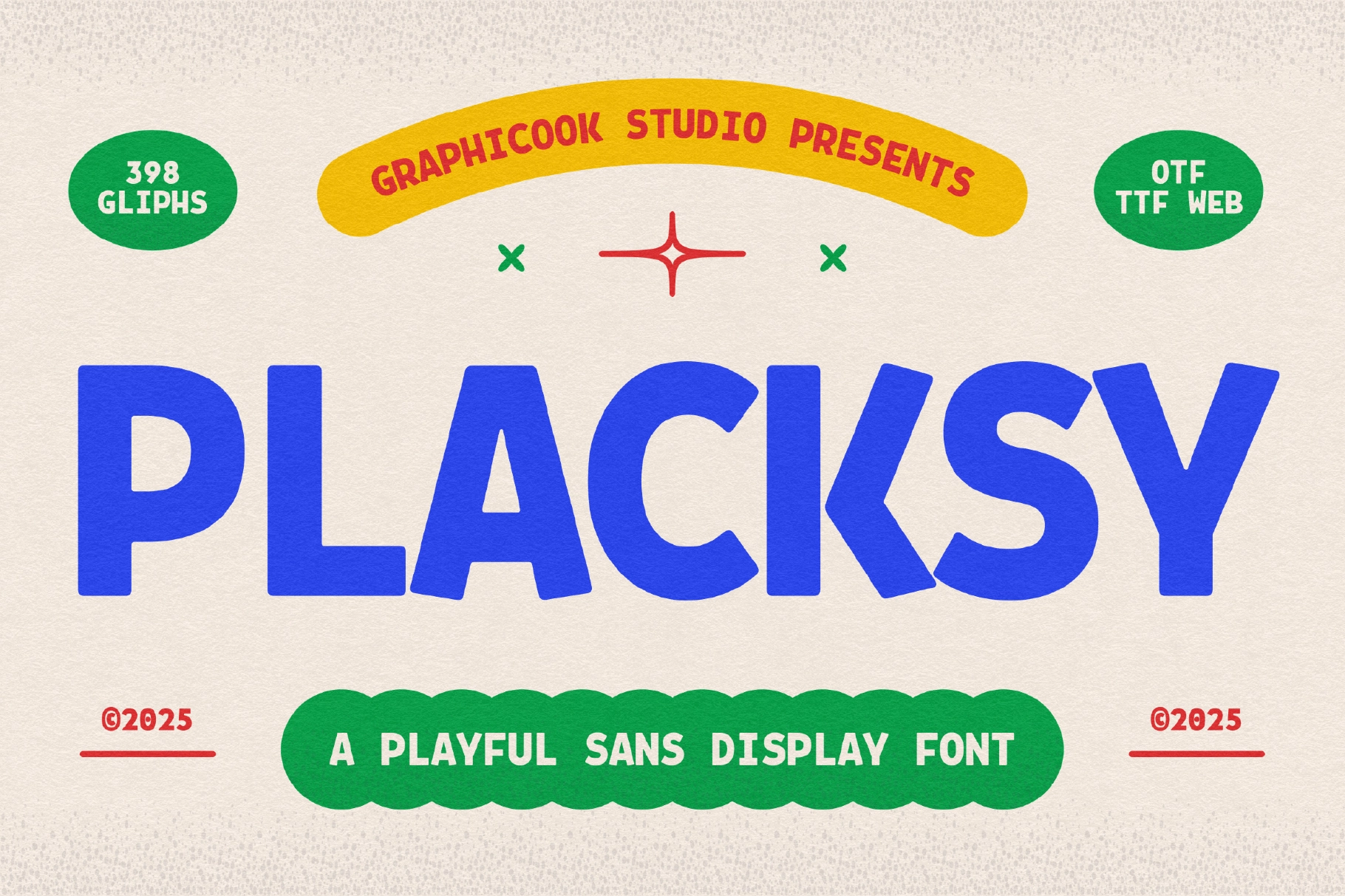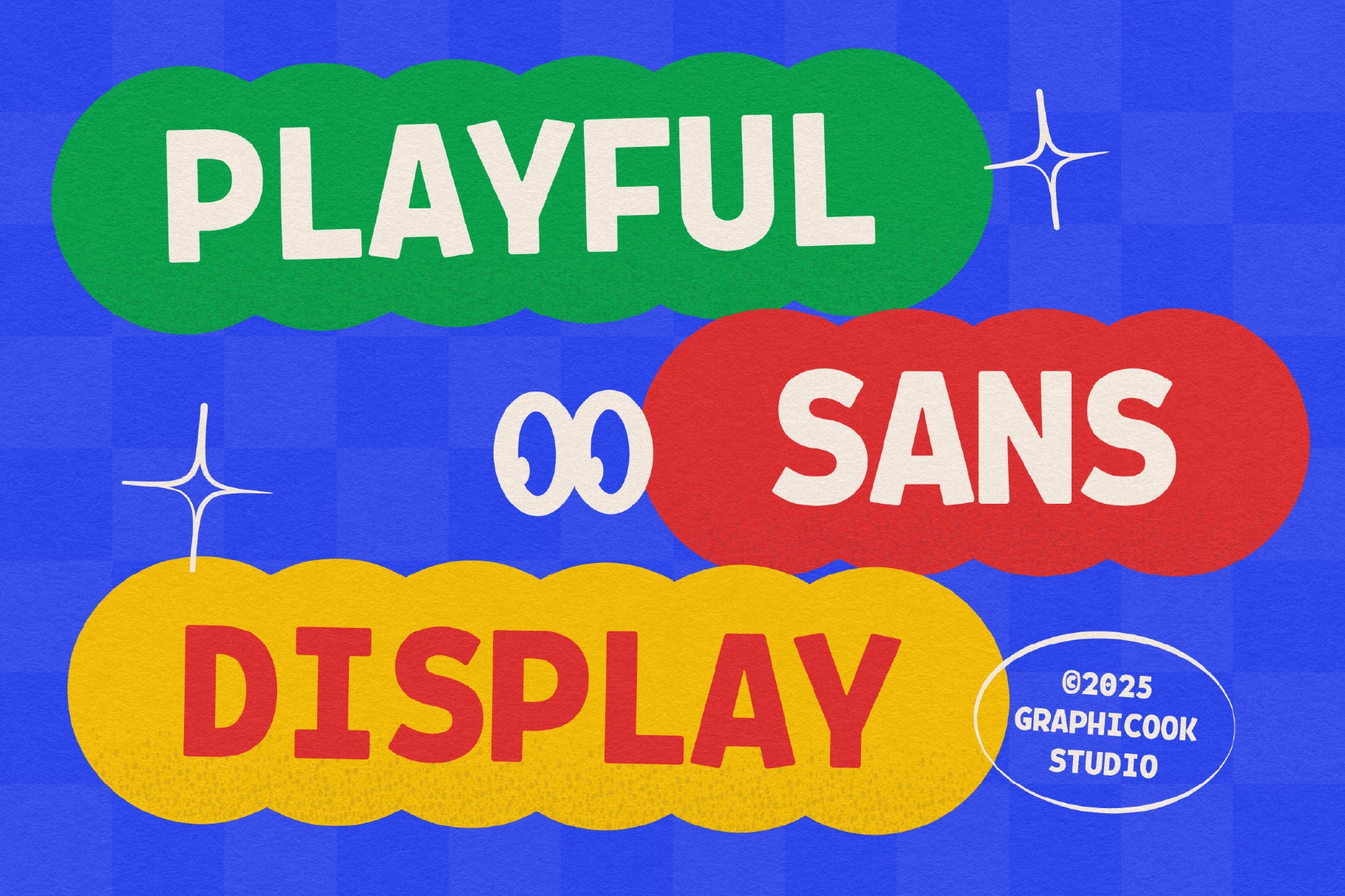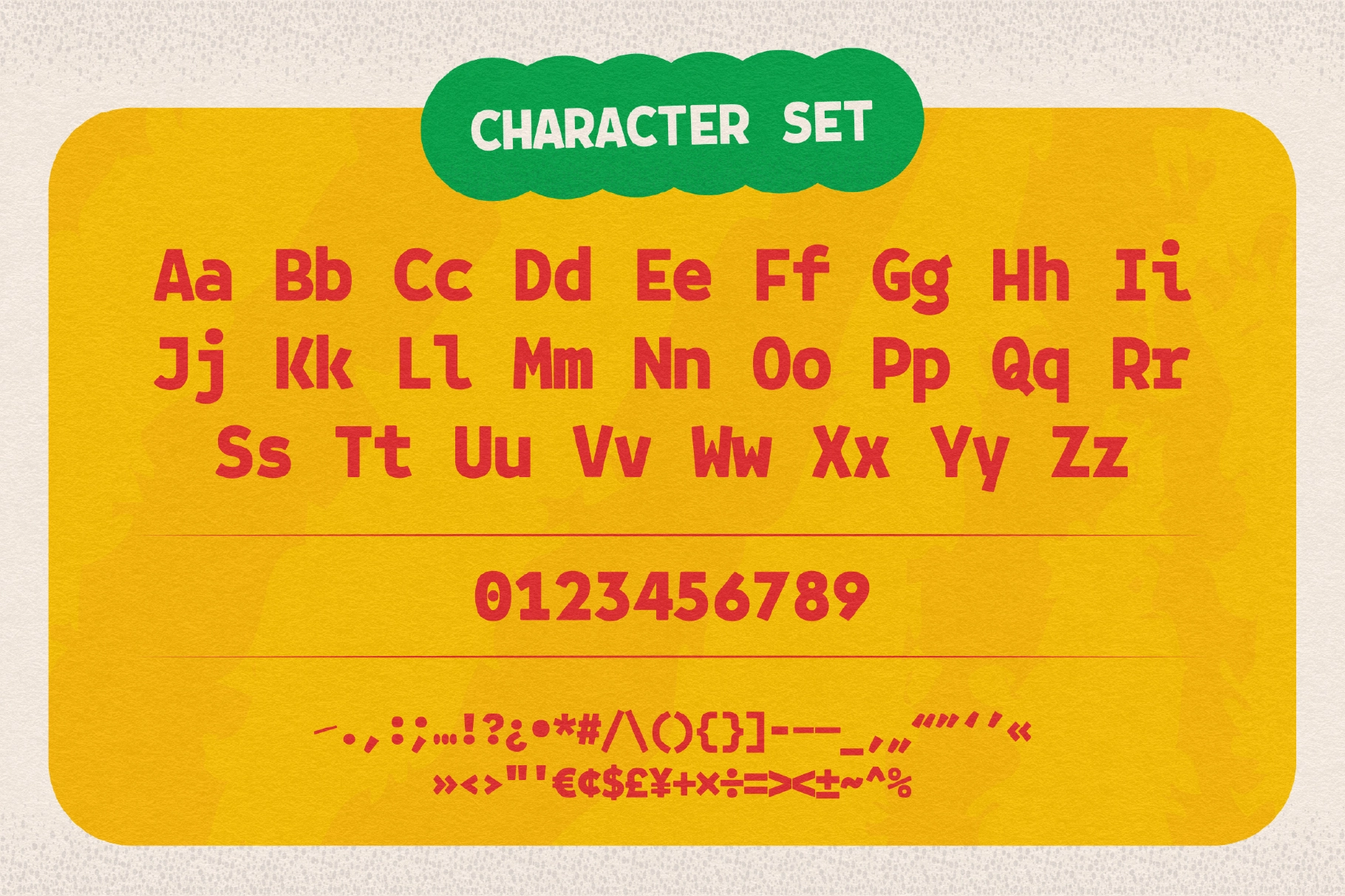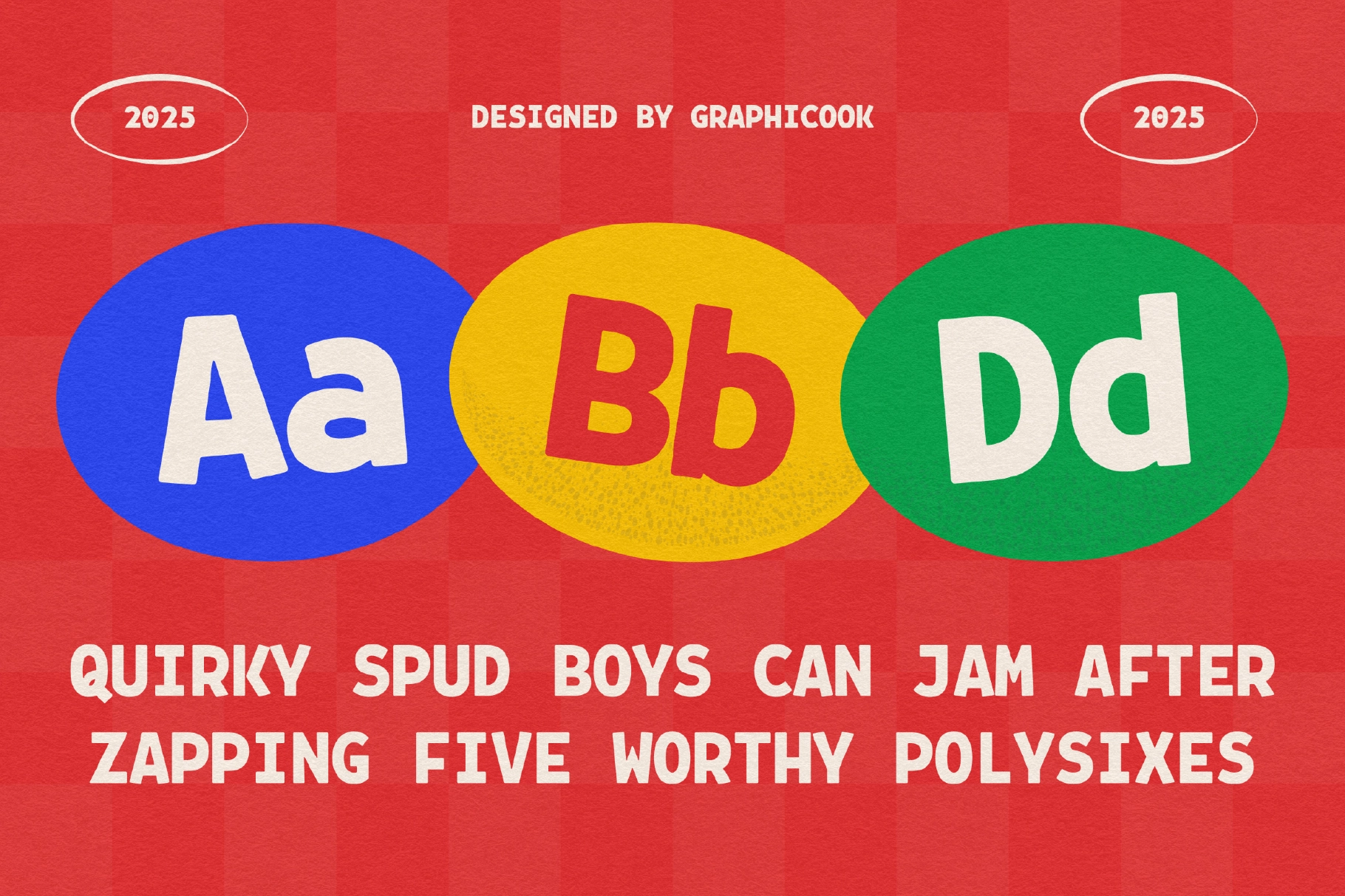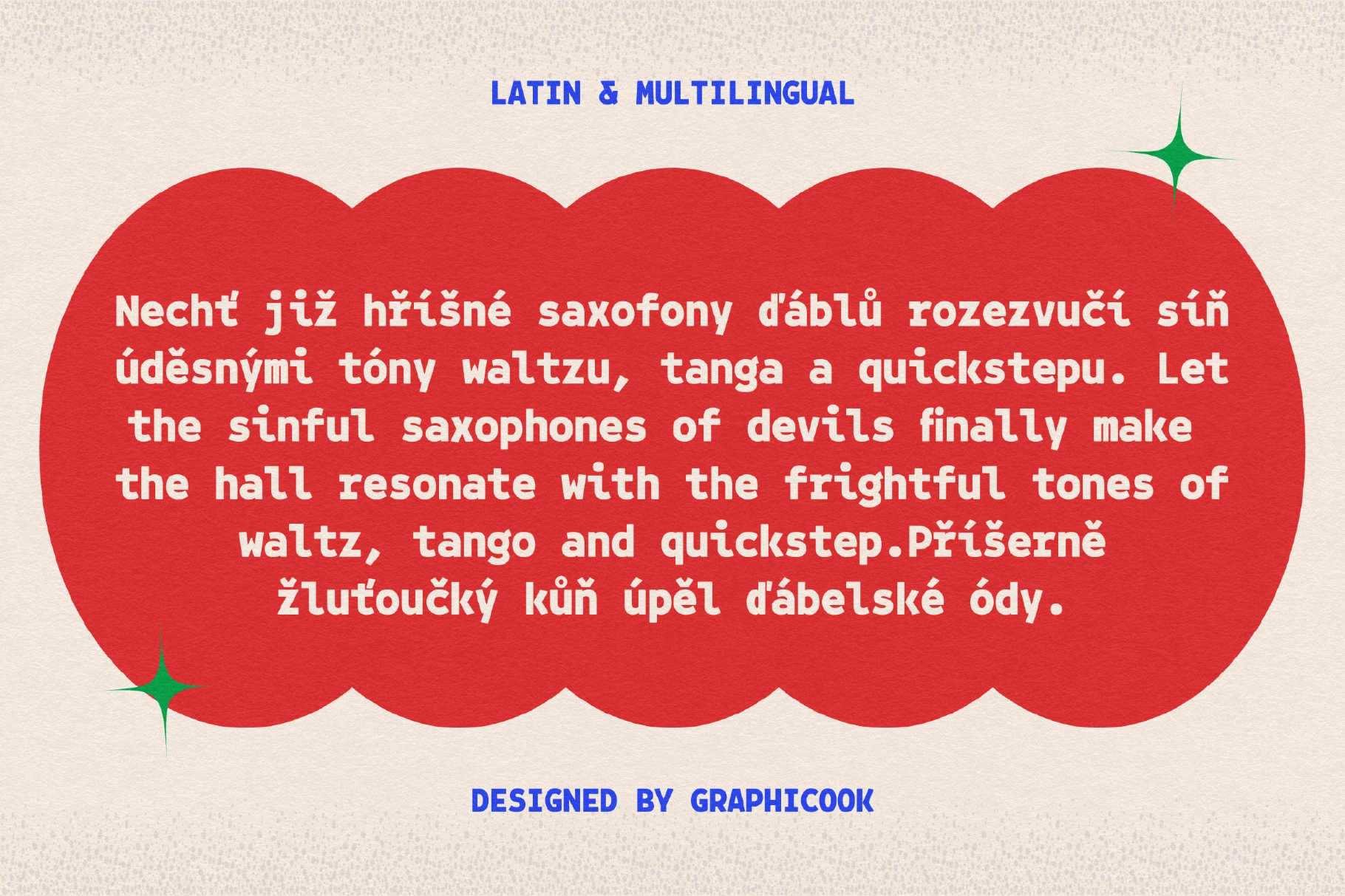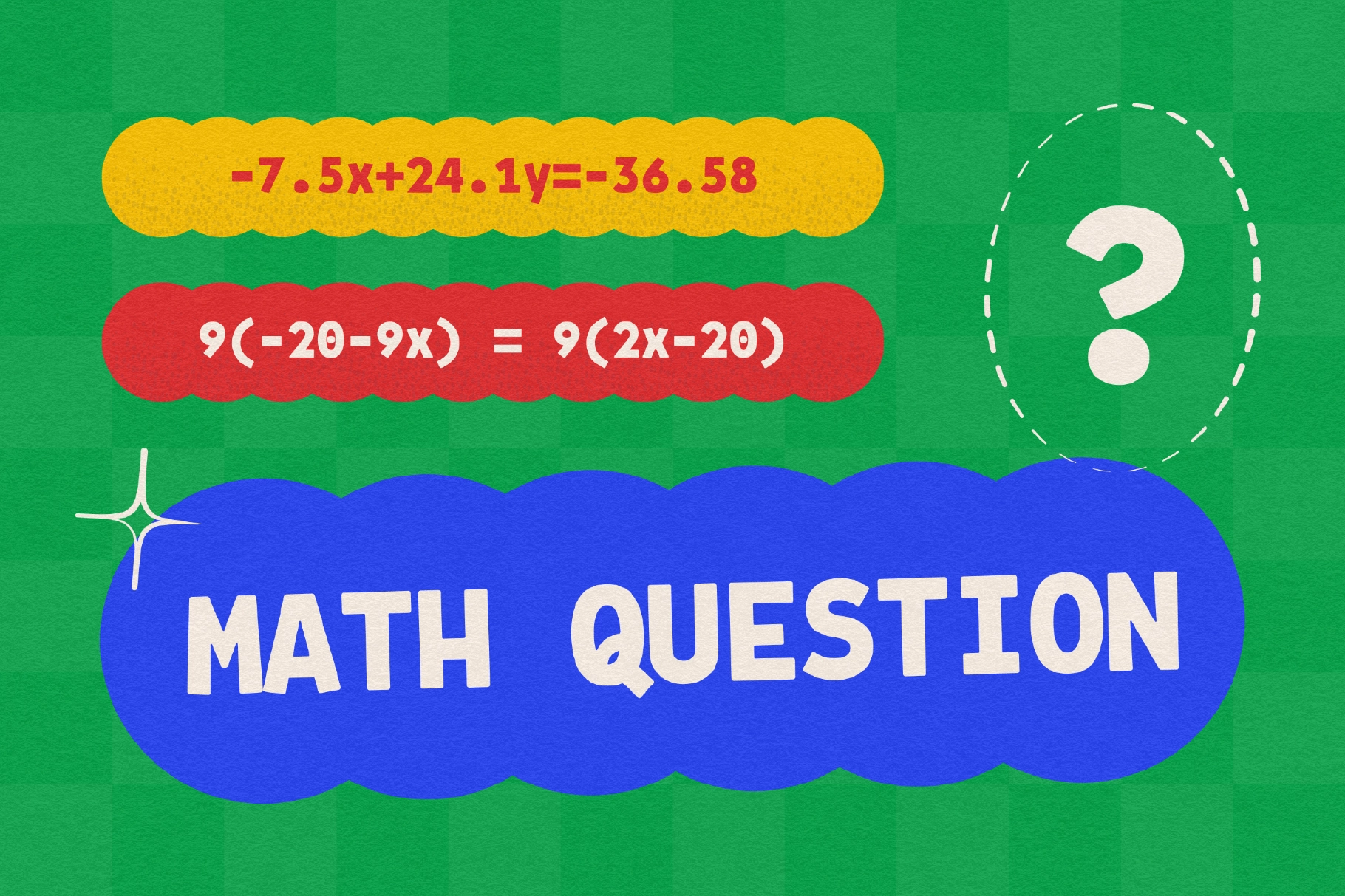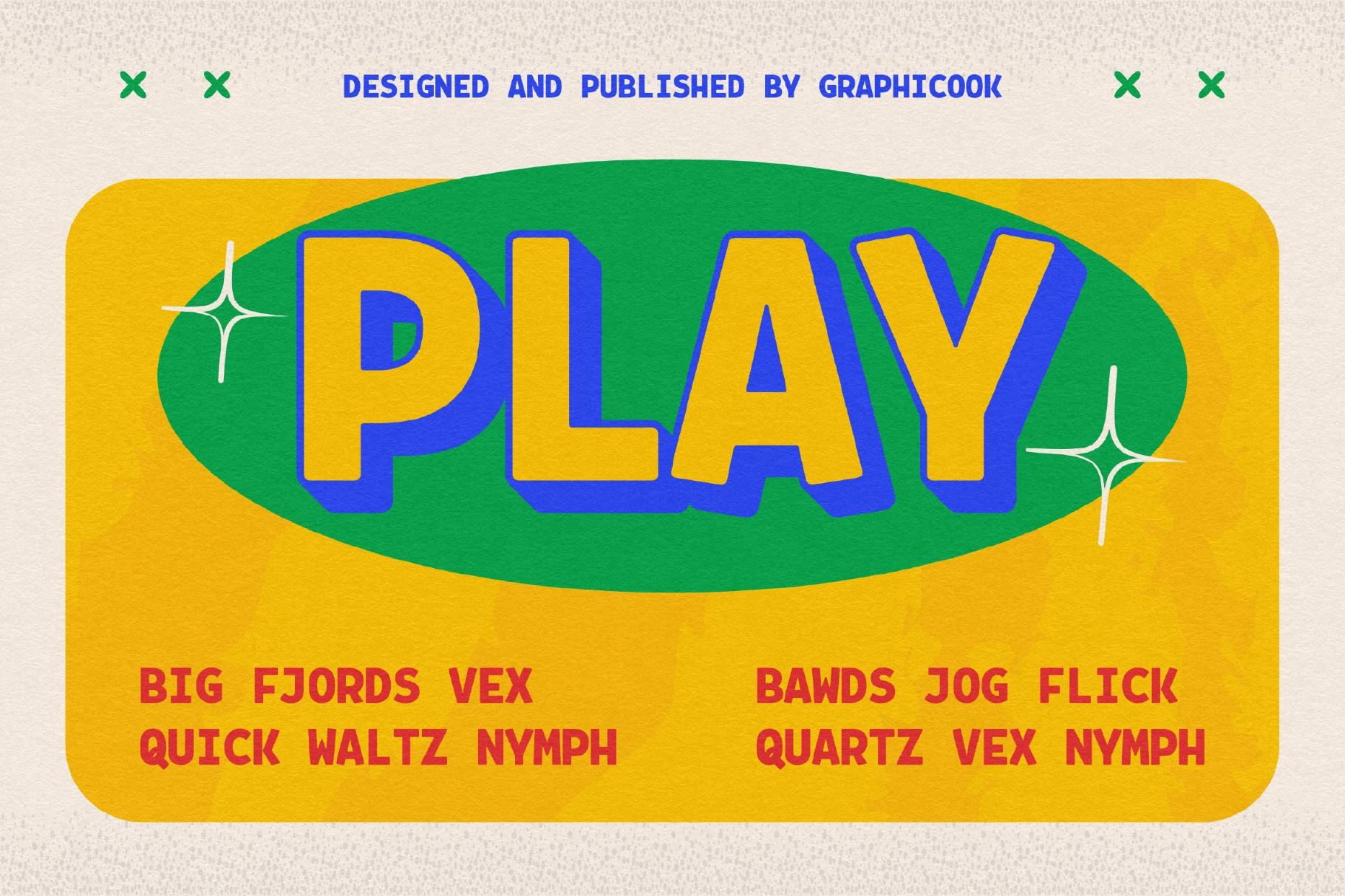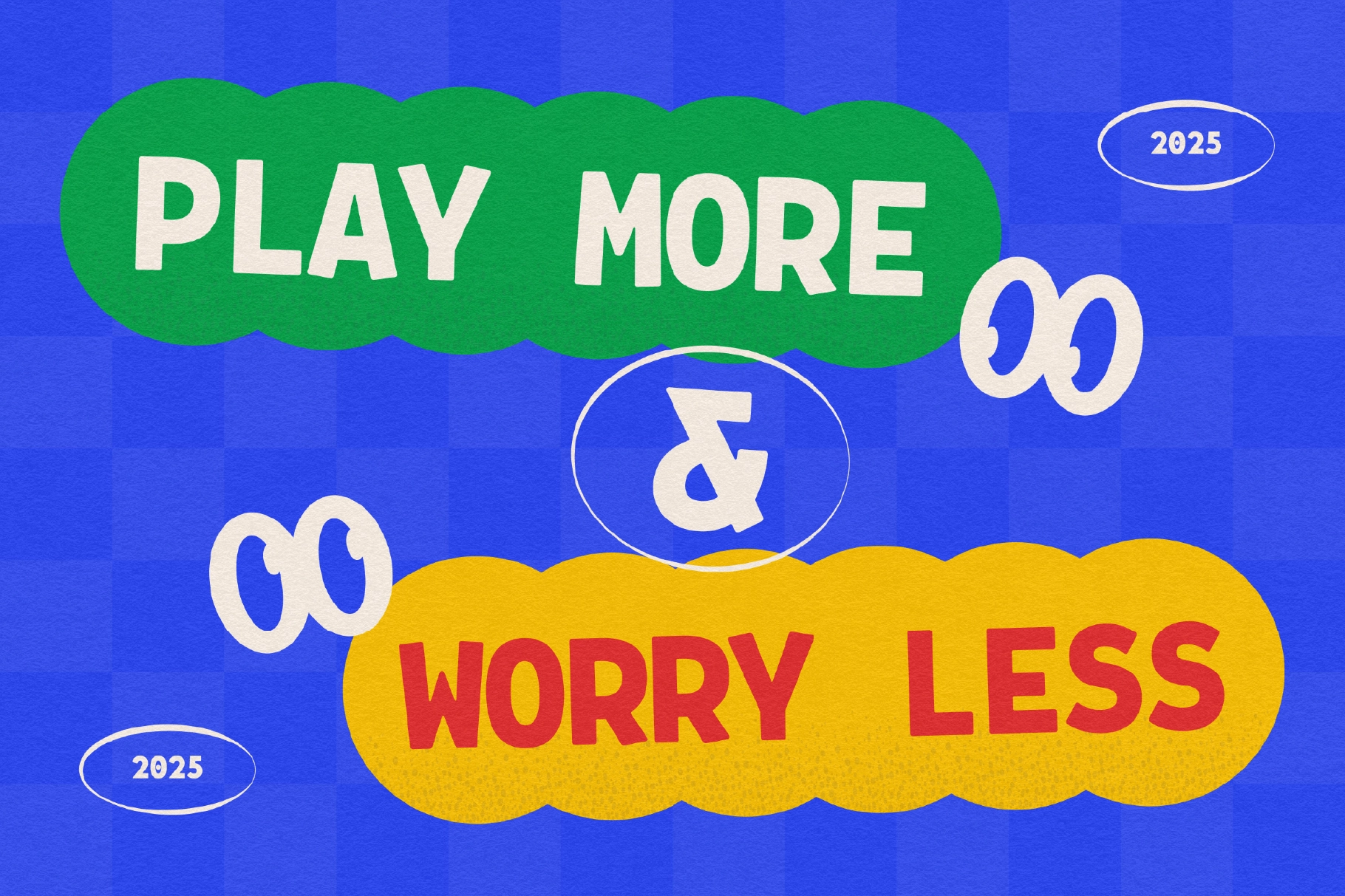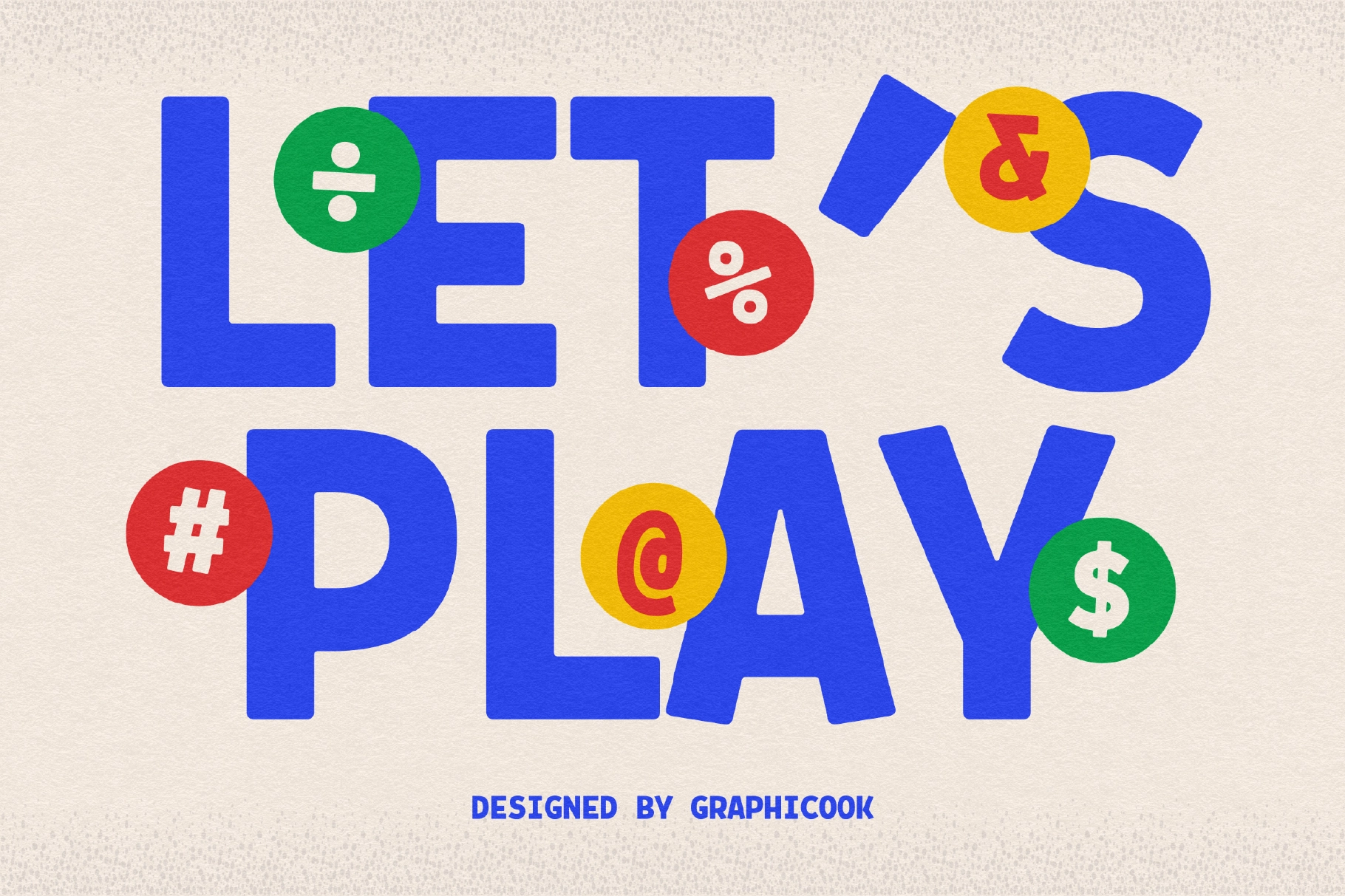
Placksy Font
Placksy
Placksy is a decorative font with bold, irregular letterforms that give off a handmade, creative vibe. It’s ideal for designs that are fun, friendly, and designed to stand out.